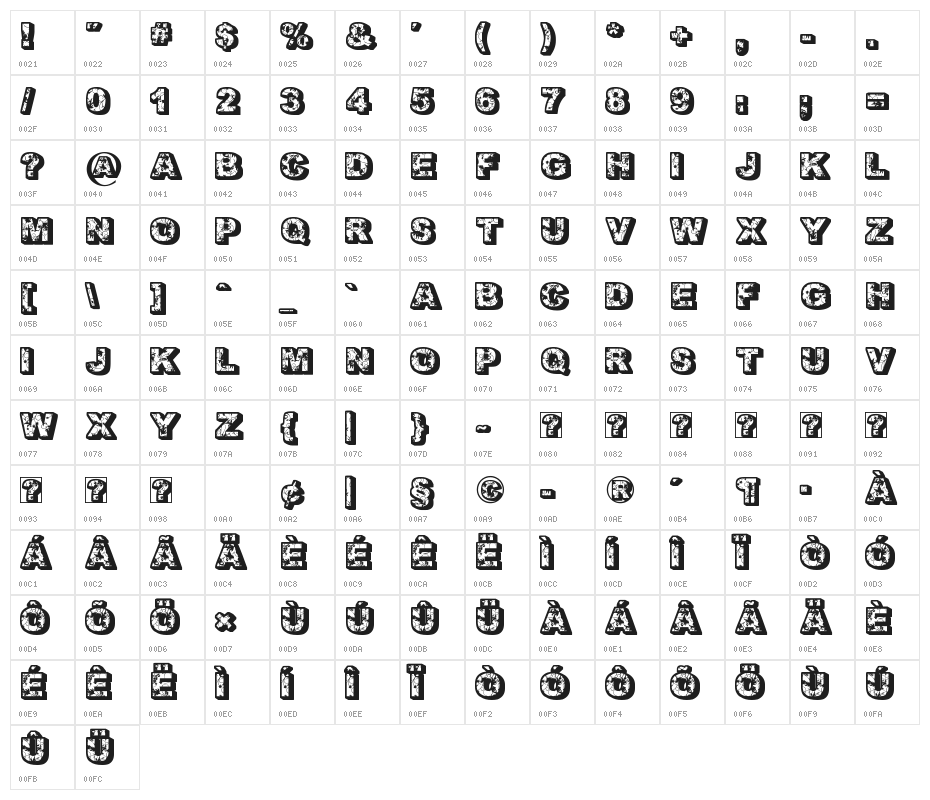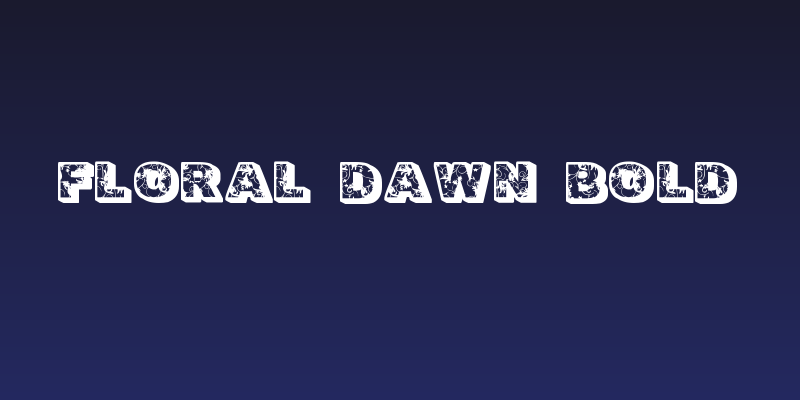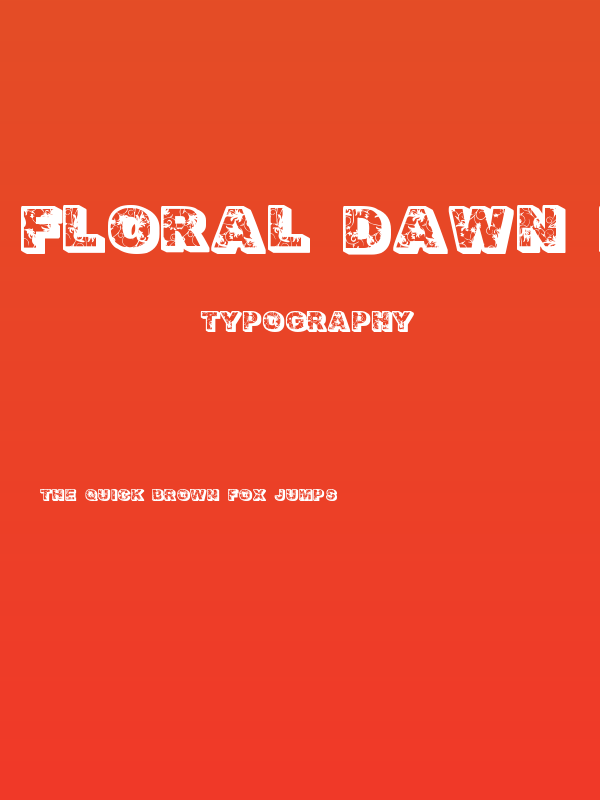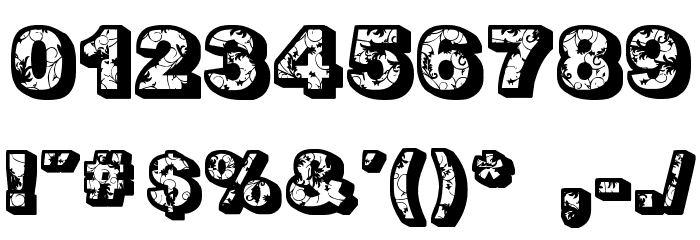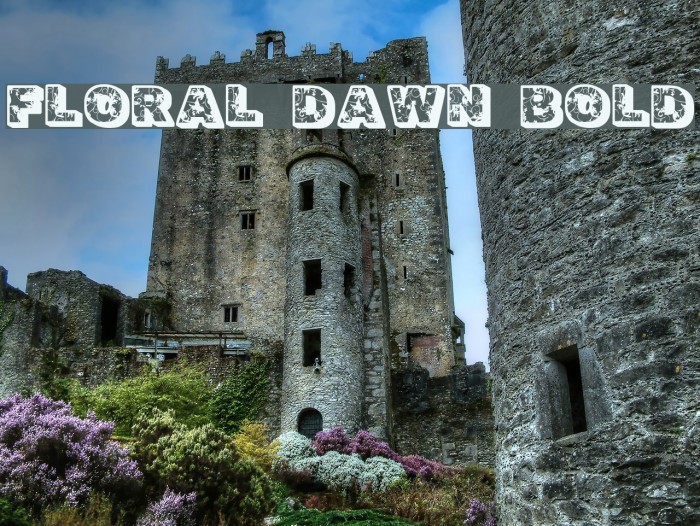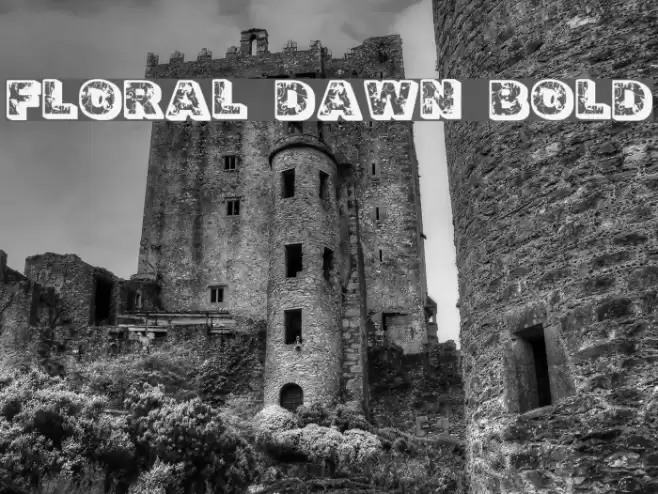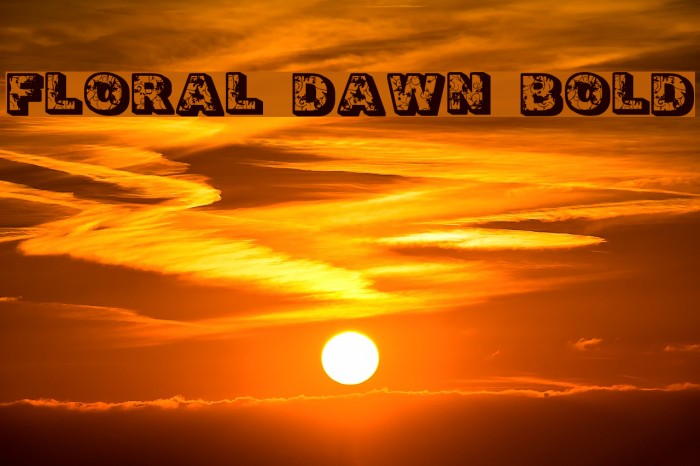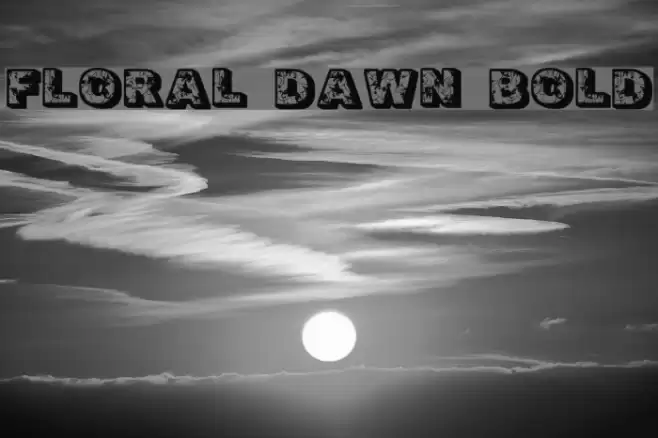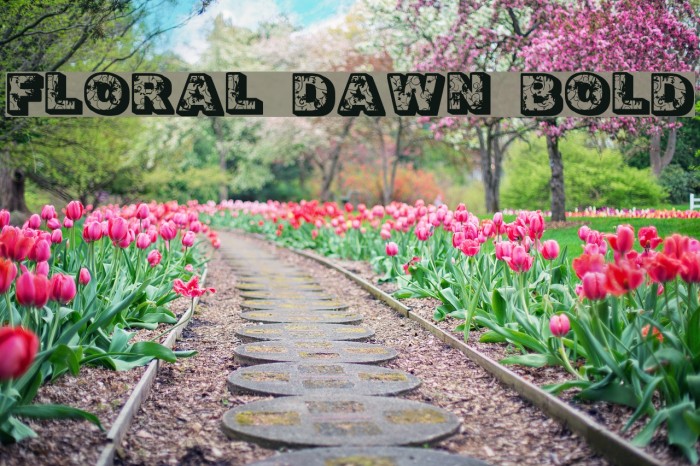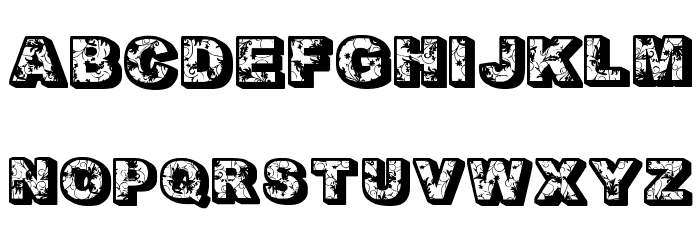
Floral Dawn Bold Font
Floral Dawn Bold Description
This font features a bold and decorative style with intricate floral patterns embedded within each character. The letters are uppercase and have a strong, impactful presence, making them ideal for attention-grabbing designs. The floral elements add a touch of elegance and creativity, making the font suitable for artistic and decorative purposes. The characters are evenly spaced, ensuring readability while maintaining their decorative appeal. The numbers and special characters follow the same floral theme, providing consistency across all glyphs.
| Use Case | Headlines, Logos, Decorative text |
| Proposed Projects | Ideal for wedding invitations, greeting cards, posters, and branding projects that require a decorative and artistic touch. |